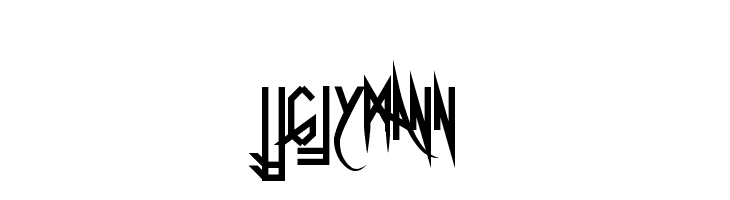
A bold, distressed font with a vintage, rustic appeal.
A bold, hand-drawn font with a dynamic, graffiti-like style.
A festive, tree-shaped font perfect for holiday designs.
A bold, cursive font with smooth, flowing lines and connected letters.
An ornate and decorative font with intricate detailing, ideal for display use.
A playful, casual handwritten font with rounded, consistent strokes.
A bold, jagged font with a fragmented, dynamic style.
An elegant serif font with intricate floral embellishments.
An elegant and sophisticated script font with flowing cursive strokes.